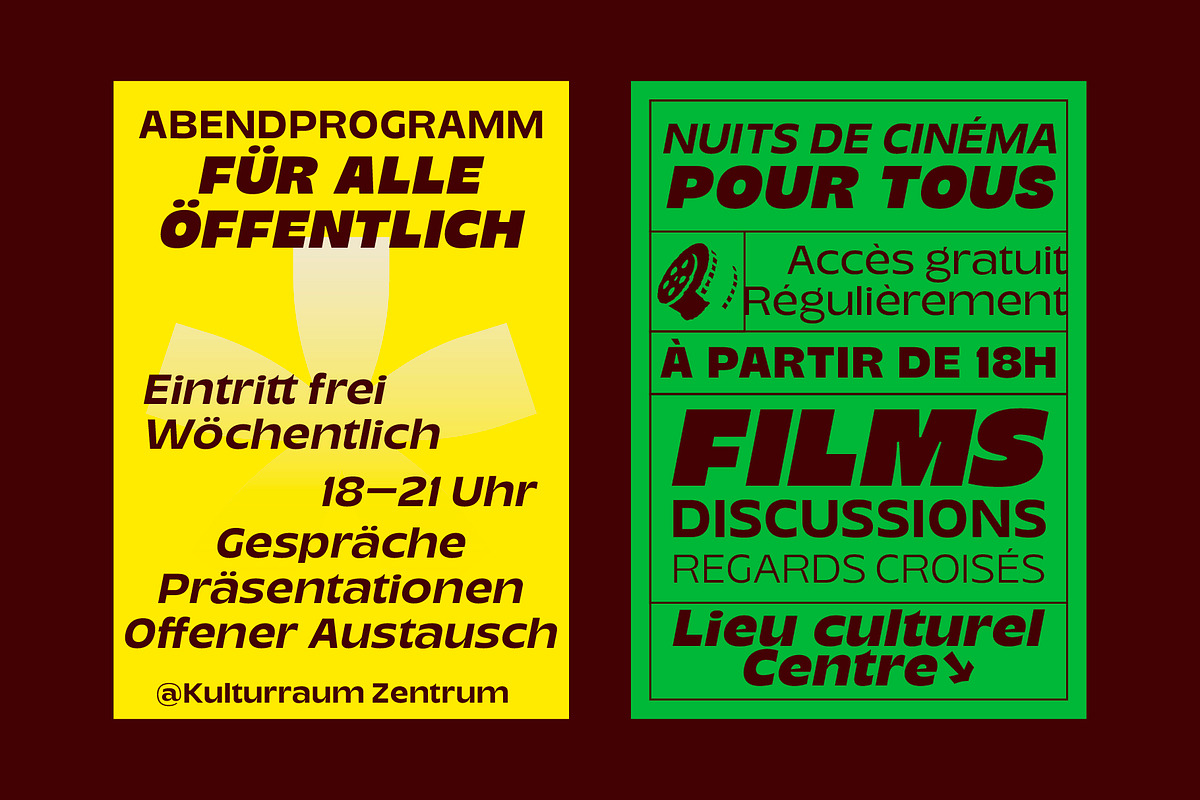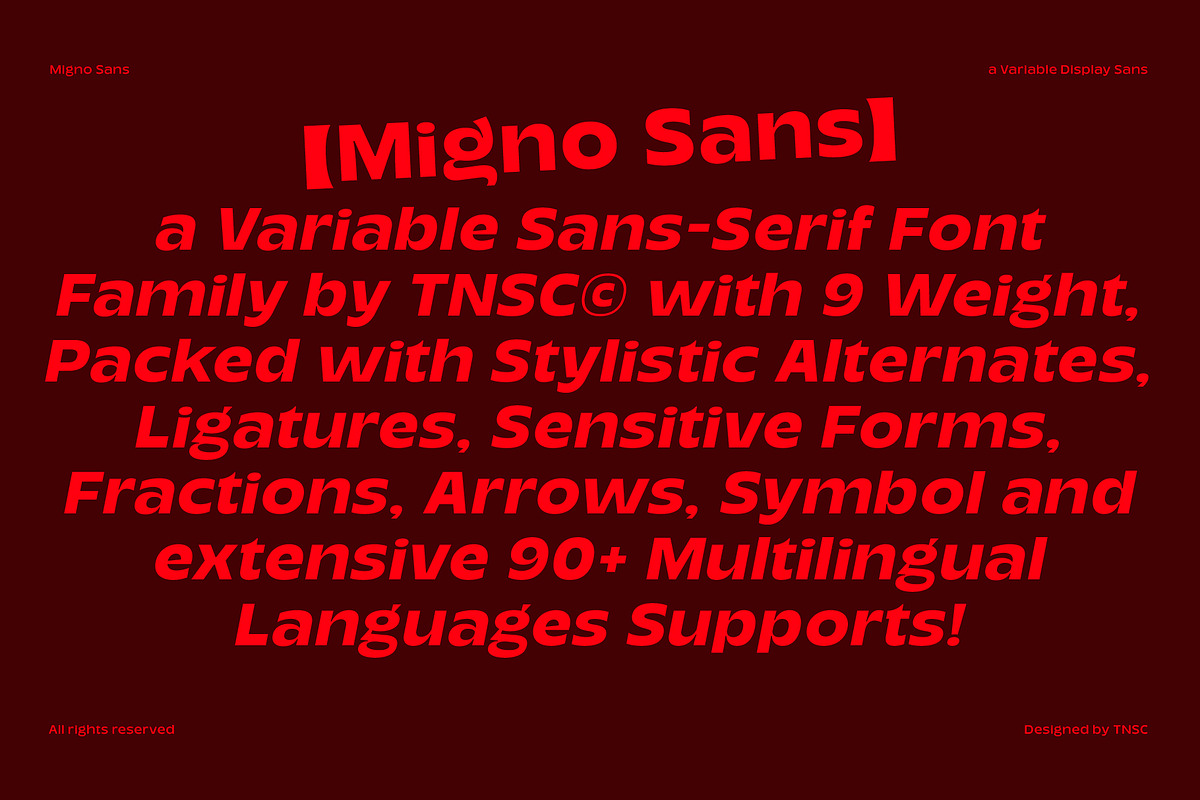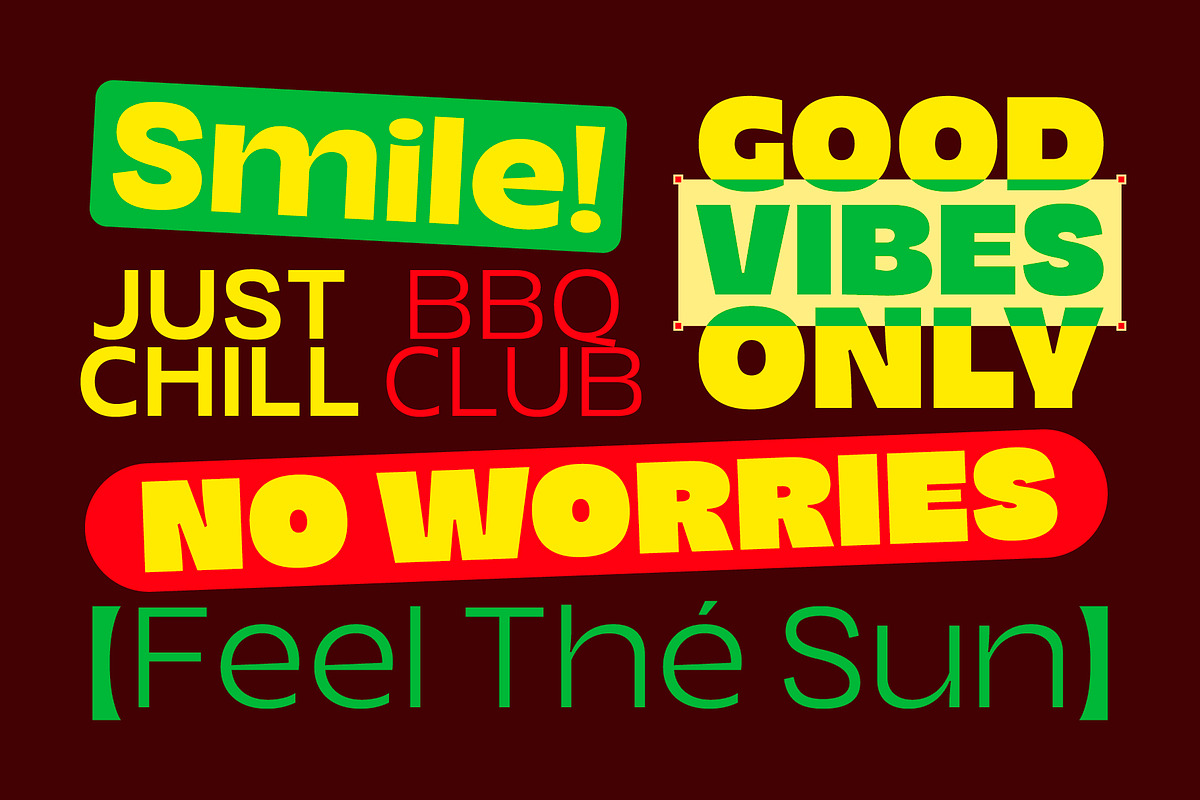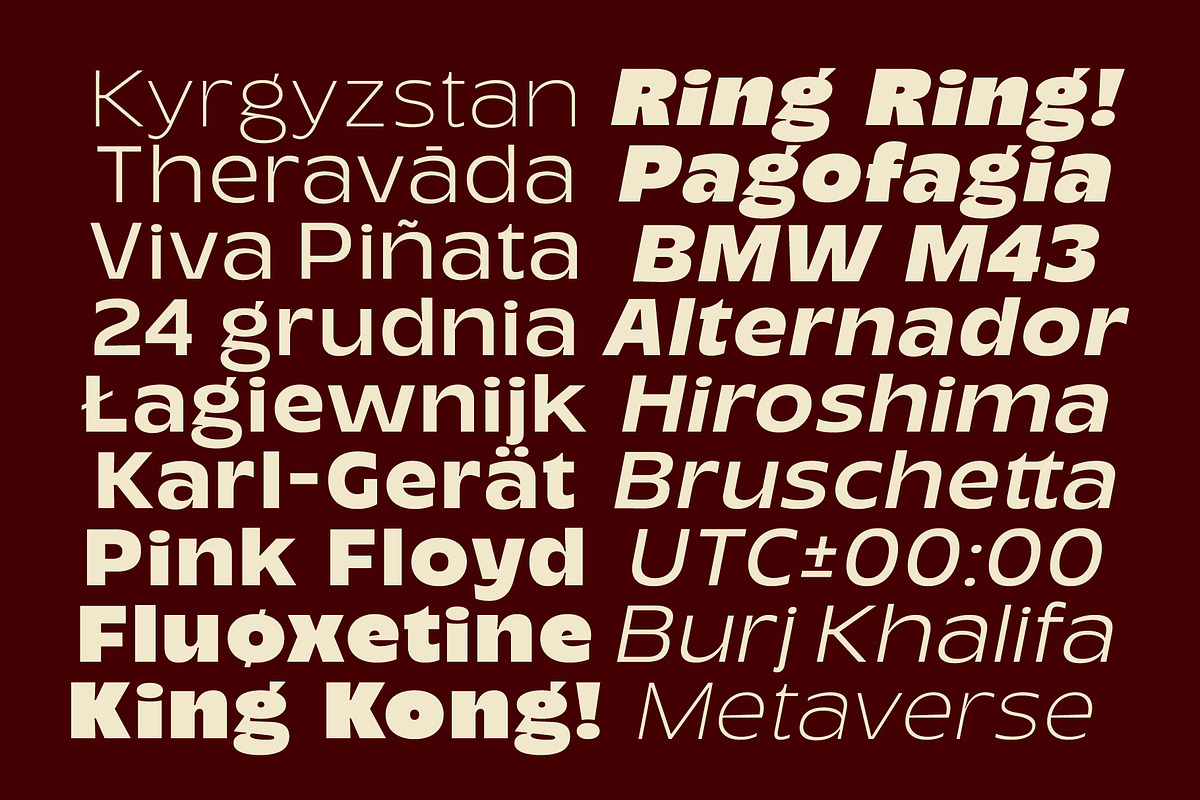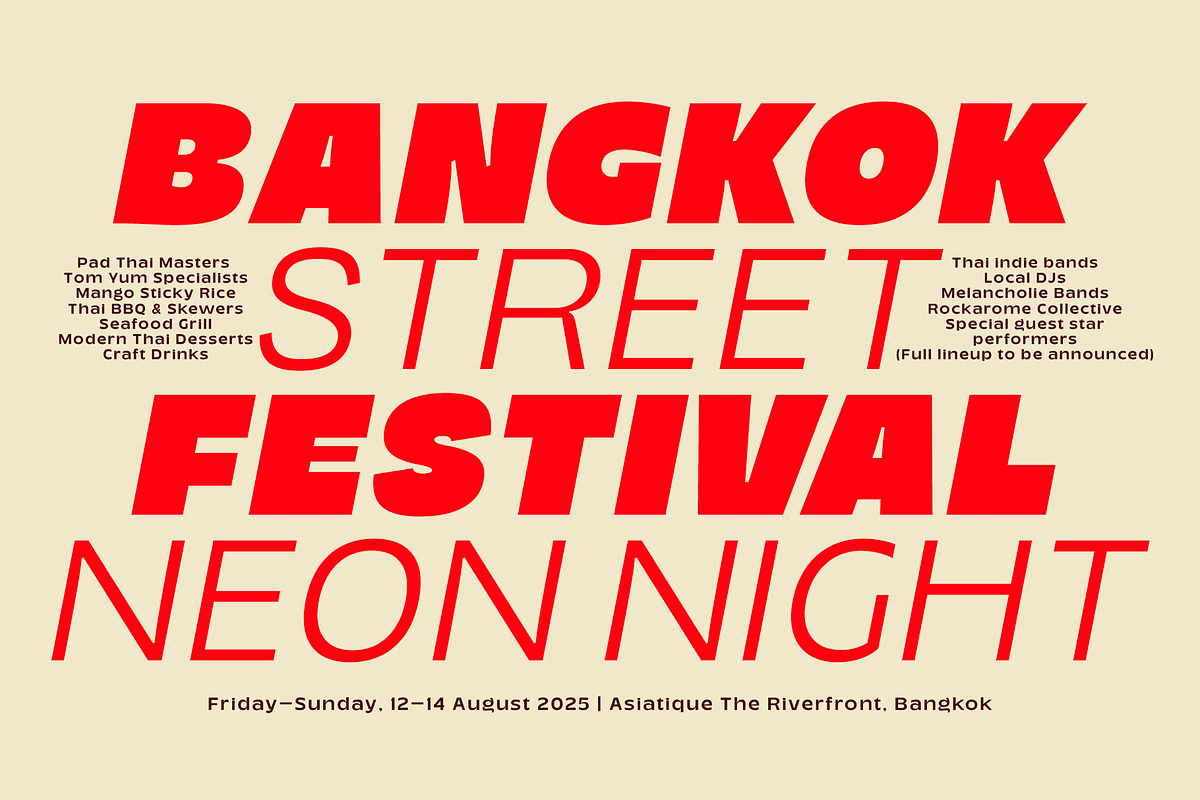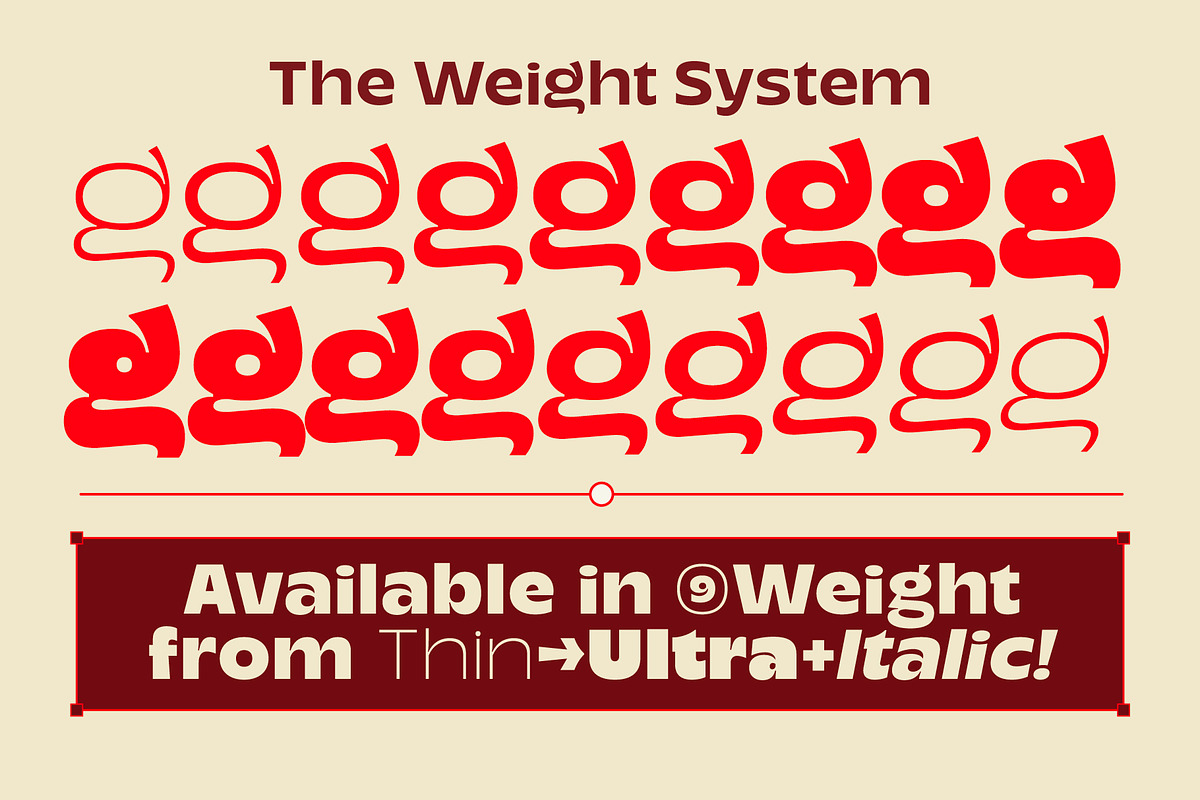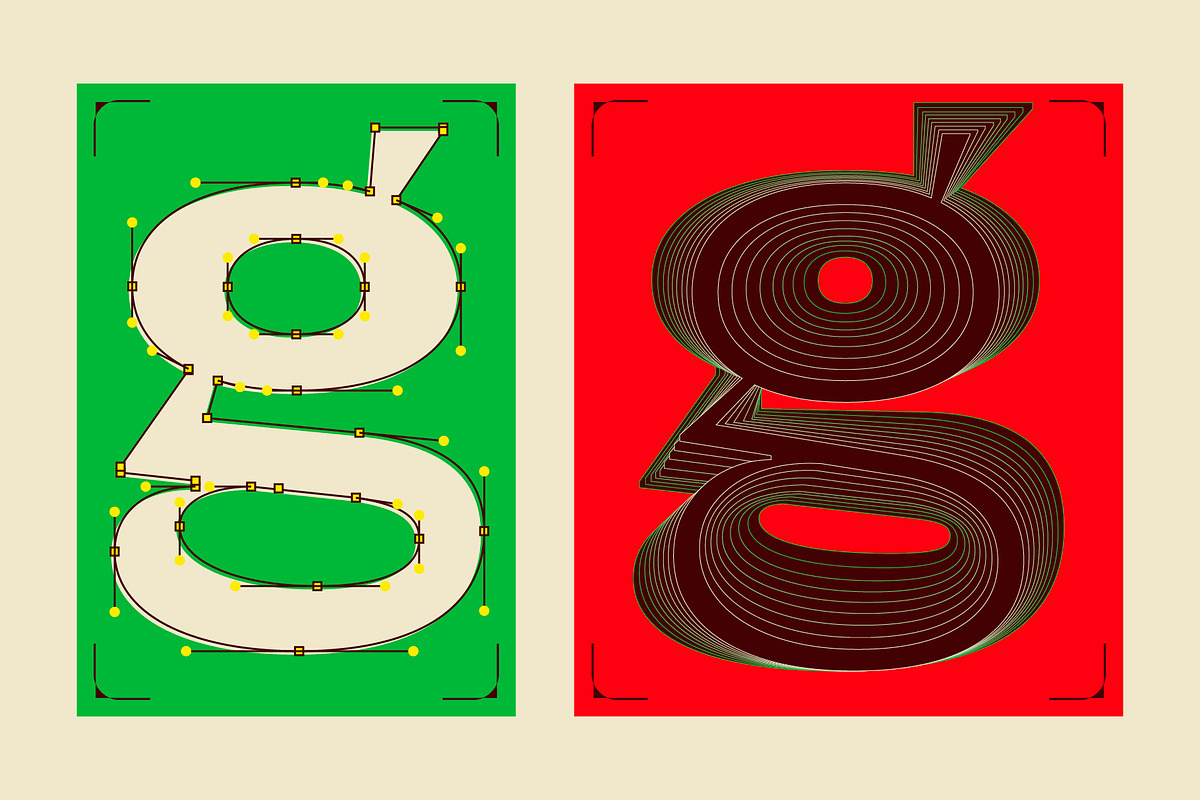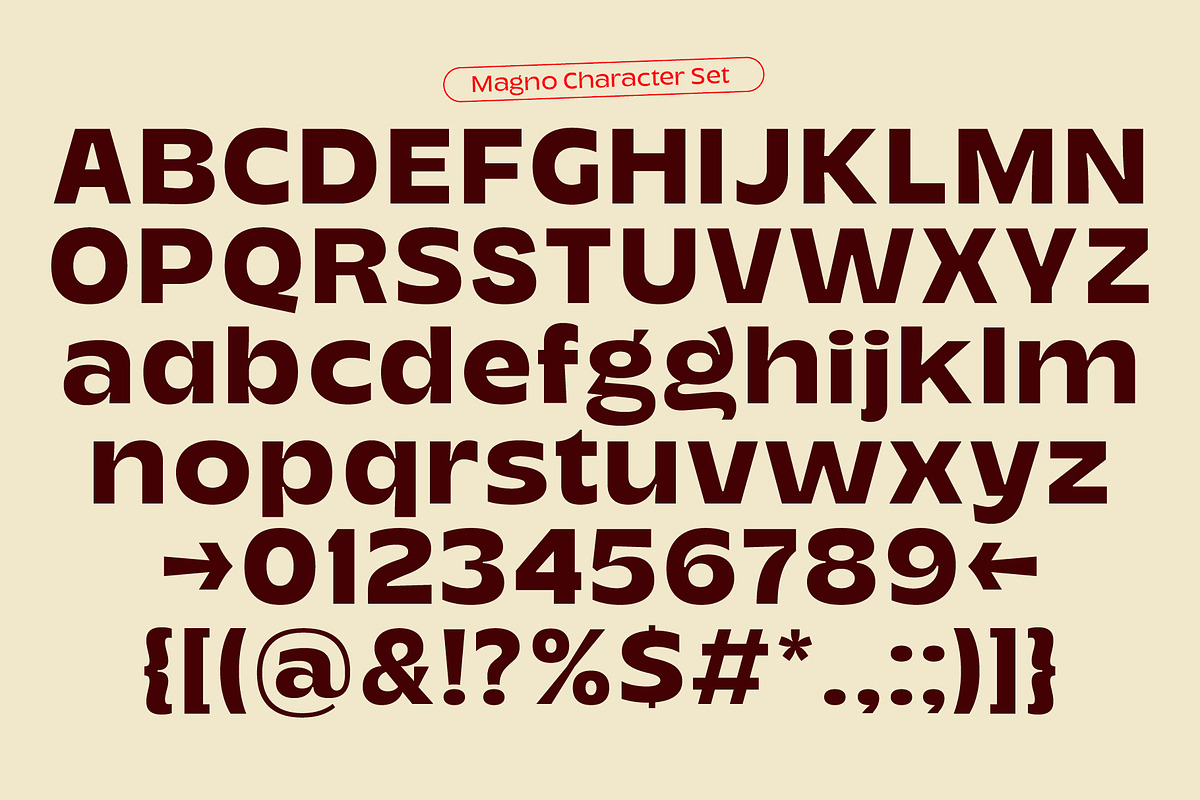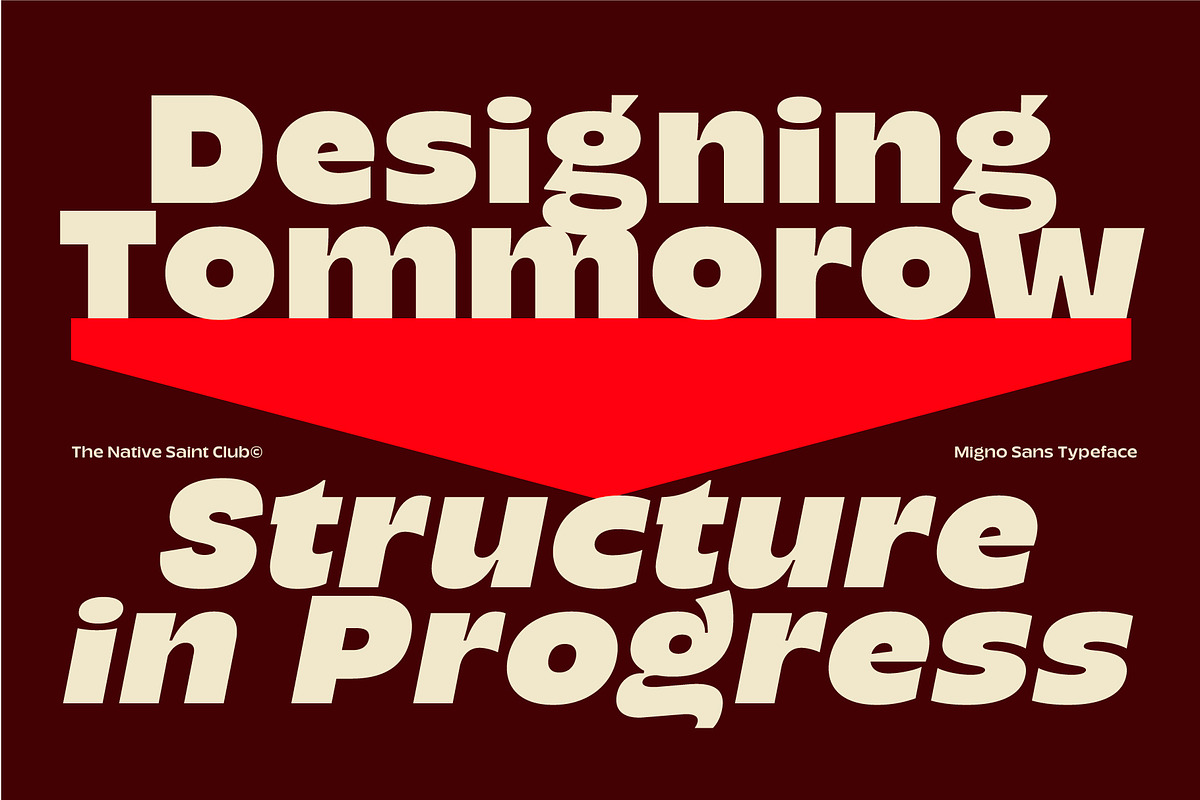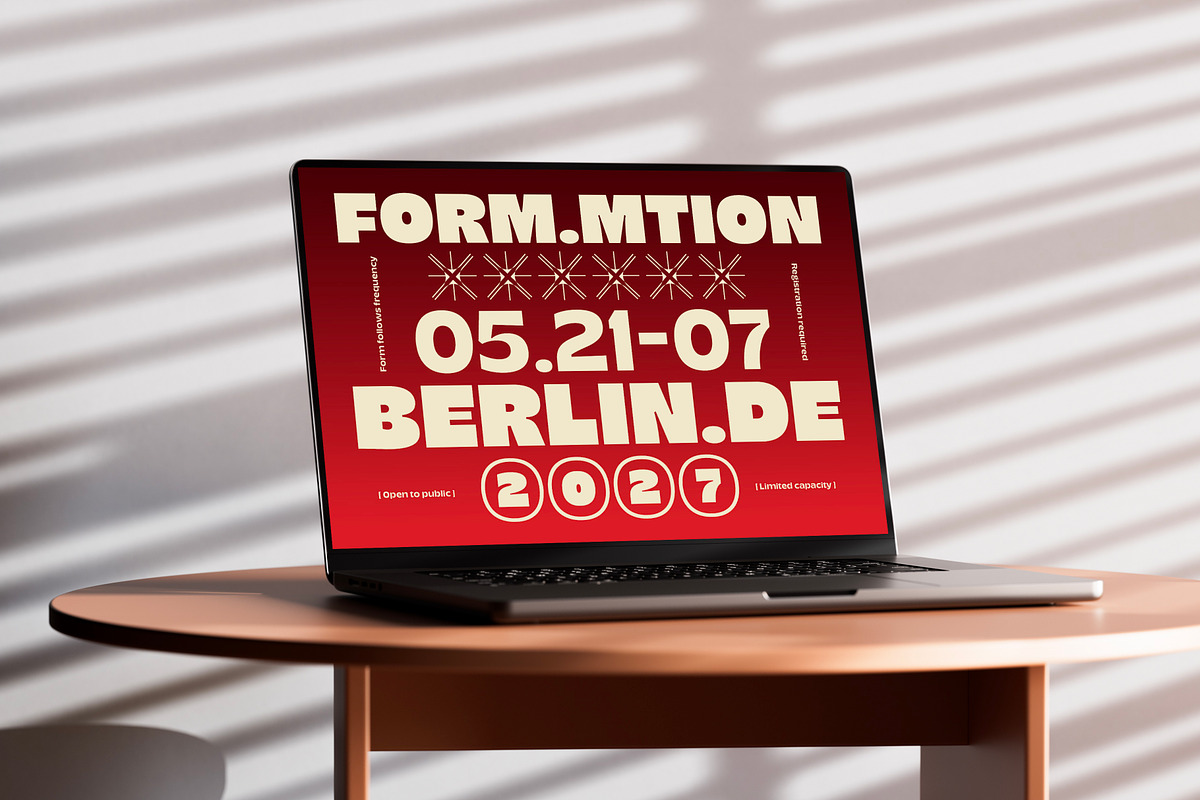
Migno - Family Display Sans Serif
Migno Sans is a variable and family sans-serif display typeface, offering a full range of weights from Thin to Ultra, including fully designed italics. This typeface is well suited for headlines, posters, branding, and visuals that require a clear and bold typographic presence.